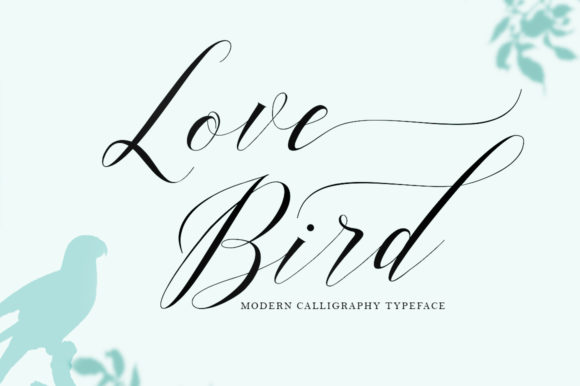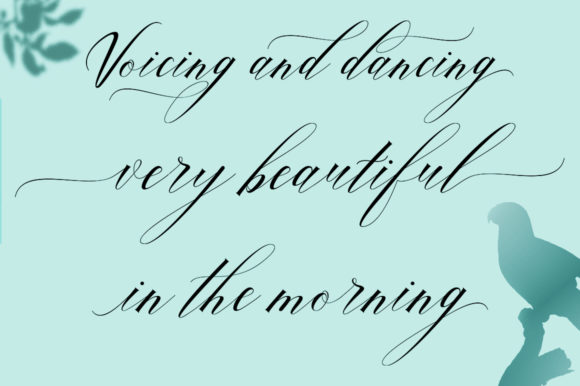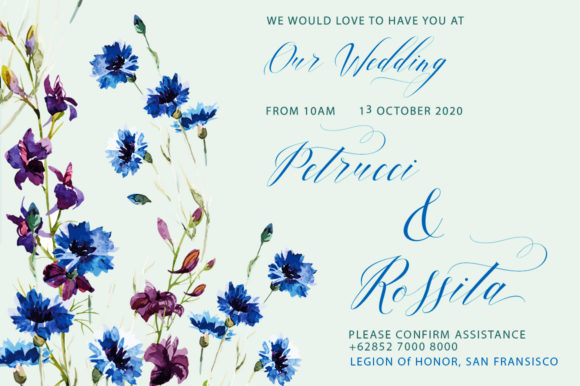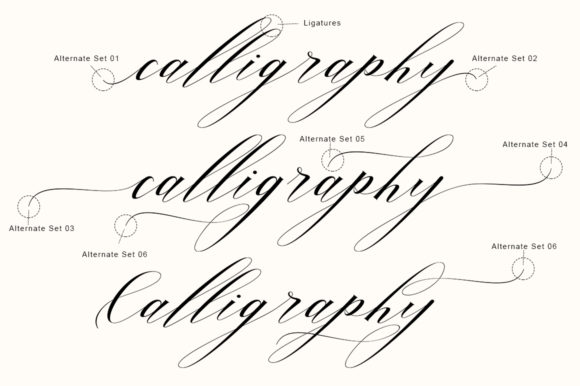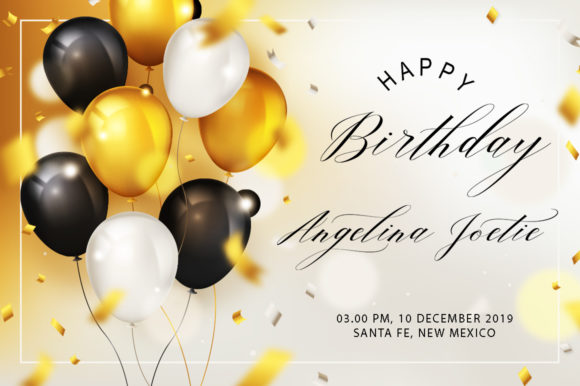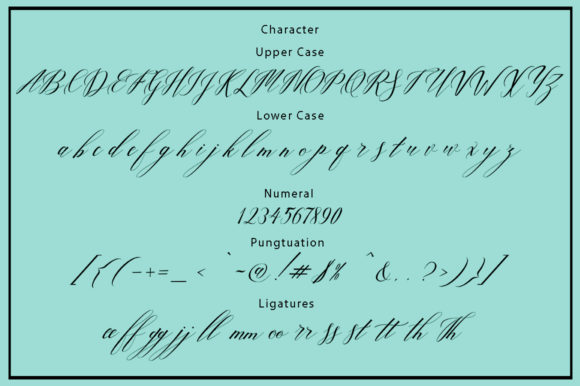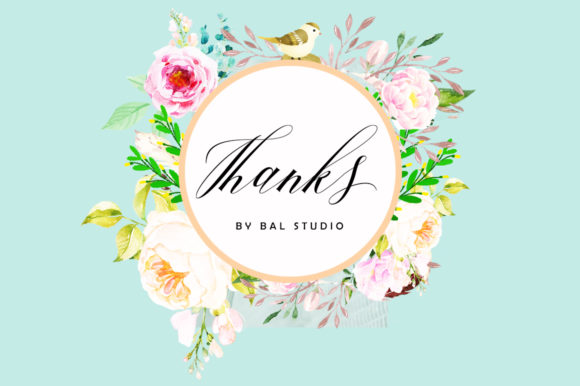
Love Bird Font
About Love Bird Font
Love Bird is an incredibly stunning script font, perfectly suited for turning any design project into a true piece of art.